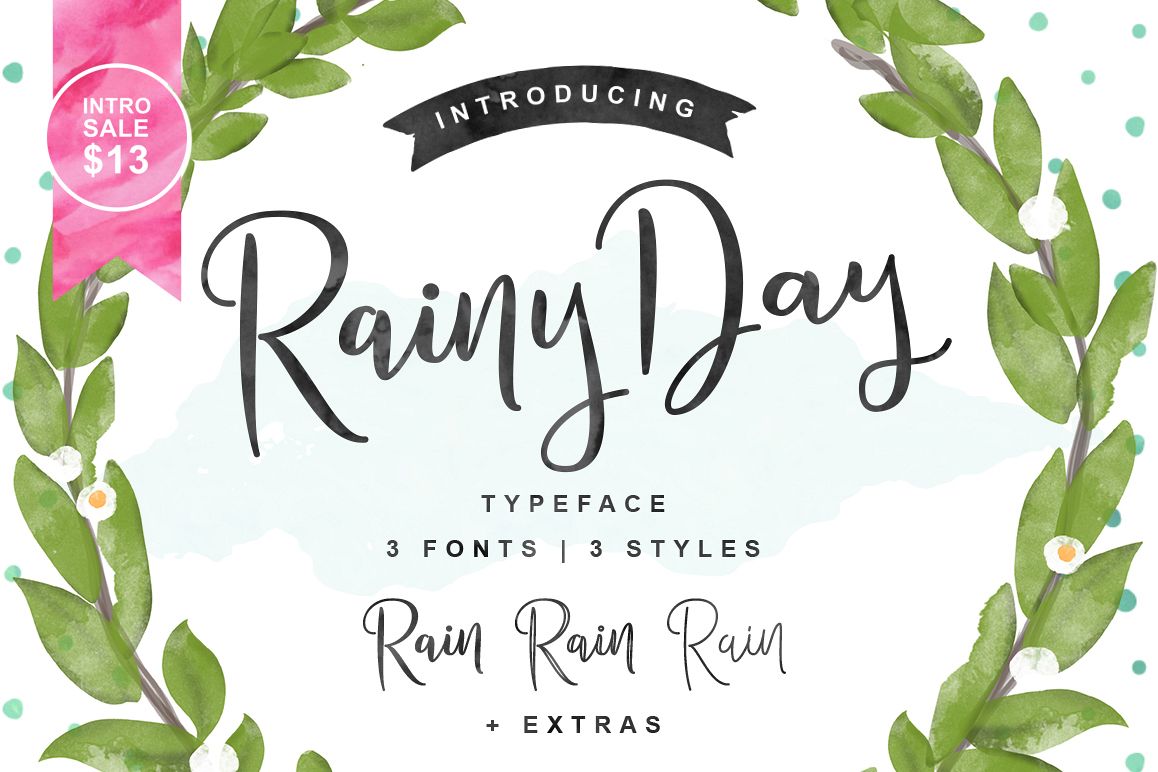
Rainy Day
Rainy Day Extras
Rainy Day Line
Rainy Day Inline
Rainy Day Scrip
Introducing Rainy Day
Rainy Day Typeface is a new Modern Calligraphy Typeface Fonts collection from Ianmikraz studio, combines from copperplate to contemporary typeface, classic, beauty and elegant touch.
Rainy Day available 3 Style Fonts ( Script, line, inline )Rainy Day Typeface features 256 glyphs and 79 alternate character contain with opentype features and has given PUA unicode (specially coded fonts), with tons of alternate characters. . Stylistic Alternates, Standart Ligature and more.You can access all those alternate characters by using OpenType savvy programs such as Adobe Illustrator, Adobe InDesign and CorelDraw X6-X7.For other programs that doesn't support OpenType Features or Glyphs Panel such as Photoshop, you can use Character Map in Windows to access the alternate characters :)
Rainy Day Typeface is suitable for Apparel Brand, any greeting cards, Painting design style, or any design that needs natural and personal touch. Mix and match the alternate characters to add an attractive message to your design.
Features of Rainy Day Typeface is;
• Standart ligatures
• Stylistic sets